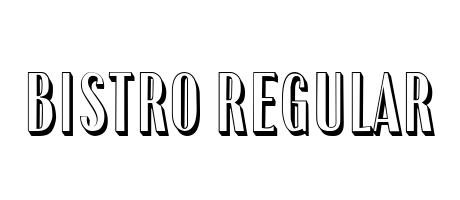
Bistro
Bistro Regular: A font exuding classic charm with a touch of modern sophistication. Its slightly condensed letterforms and subtle serifs create a balanced aesthetic, perfect for headlines and body text alike. The slightly shadowed appearance adds a layer of depth and visual interest, hinting at a timeless elegance. It's both refined and approachable, versatile for a range of applications.